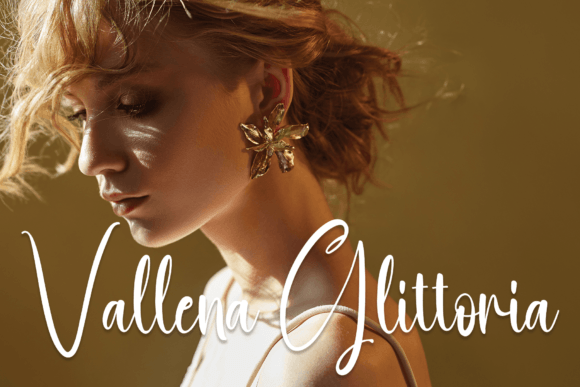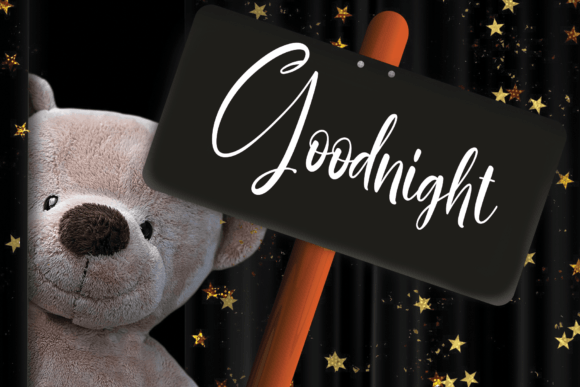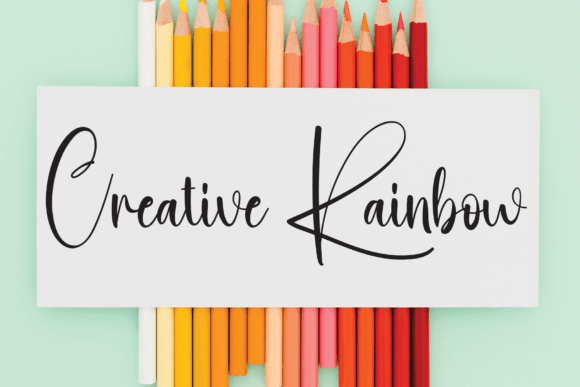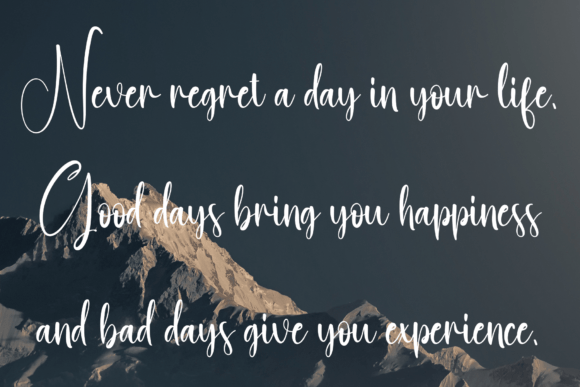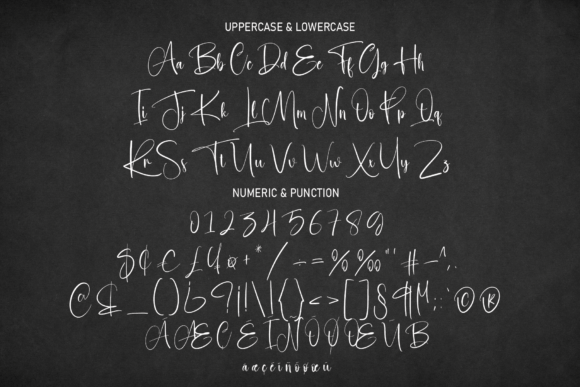
About Resolute Font
Resolute is a finely crafted and well-rounded handwritten font that brings an authentic touch to a variety of crafty projects. This font is designed with precision and care, making it a versatile choice for enhancing the visual appeal of your creations. Whether you’re working on wedding invitations, birthday cards, personal branding, elegant logos, or any other project, Resolute stands out, ensuring that your designs shine with uniqueness and distinction.
The delicate strokes of Resolute contribute to its refined and sophisticated appearance, making it a suitable choice for projects that require a touch of elegance and authenticity. The balance between delicacy and a well-rounded design ensures that Resolute adapts seamlessly to diverse design needs.
In the realm of wedding invitations, Resolute becomes an exquisite choice that adds a touch of romance and charm. The handwritten authenticity of the font elevates invitations, turning them into timeless keepsakes that reflect the uniqueness of the special occasion.
For birthday cards, Resolute imparts a personal and crafted feel, transforming simple cards into heartfelt expressions. The font’s versatility allows for creative expression, ensuring that each birthday message is delivered with a touch of elegance and warmth.
In personal branding, Resolute becomes a distinctive element that sets you apart from the competition. The handwritten authenticity adds a layer of personality to your brand identity, making it more memorable and relatable. Whether used in logos or other branding materials, Resolute ensures that your visual identity resonates with authenticity and sophistication.
Resolute’s adaptability extends to elegant logos and other crafty projects, where its well-rounded design shines. Its versatile nature allows it to seamlessly integrate into various design aesthetics, ensuring that your creations stand out with a touch of sophistication and authenticity.
In essence, Resolute is not just a font; it’s a design companion that enhances the authenticity and elegance of your crafty projects. Its delicate and well-rounded nature makes it suitable for a range of applications, turning each project into a standout creation that captivates your audience. Let Resolute be the delicate yet powerful handwritten font that elevates your designs to new heights, setting them apart with a unique and authentic charm.